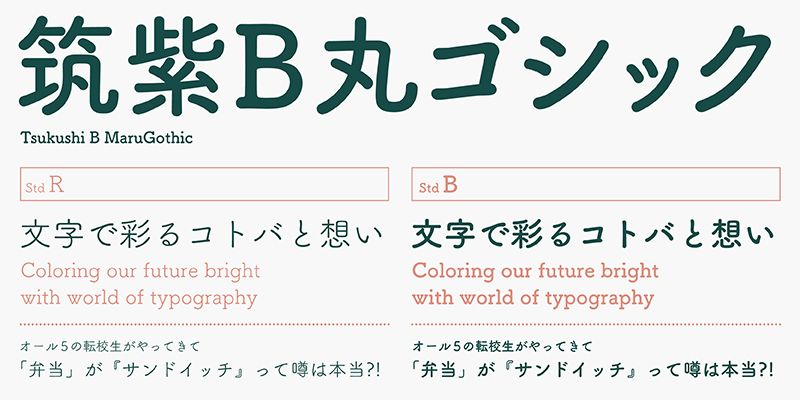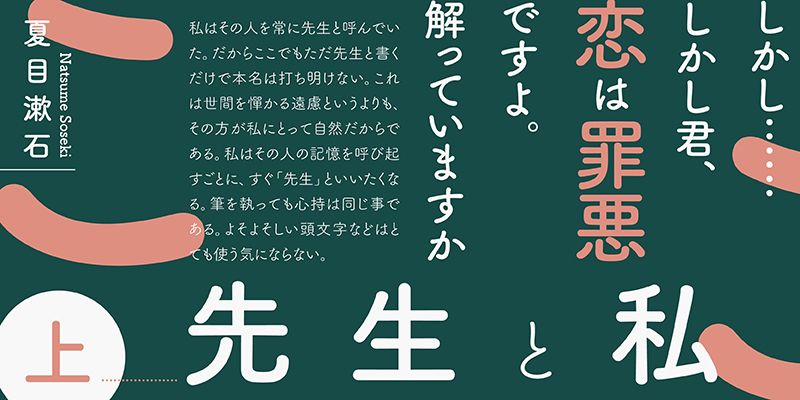
FOT-TsukuBRdGothic Std is distinctly different from ordinary round gothic (rounded sans-serif) typefaces. It’s a round gothic (sans-serif) typeface with a modern feel. However, unlike many other modern designs, which have larger counter spaces, FOT-TsukuBRdGothic Std has tightened, smaller counter spaces. Its kanji (ideographic) characters have strokes with rounded edges and smooth curves, instead of geometric shapes and straight lines, giving a warm feeling. Its kana syllabic characters are designed with the Old-style in mind and use an Egyptian-based design for alphanumeric characters. Using FOT-TsukuBRdGothic Std, you can get especially good typeset results.
(The character “A” or “B” in each font name indicates a different design of kana characters. The kanji and other characters are shared commonly by both types of fonts.)